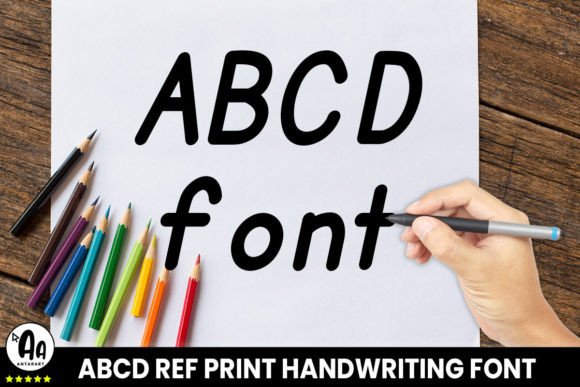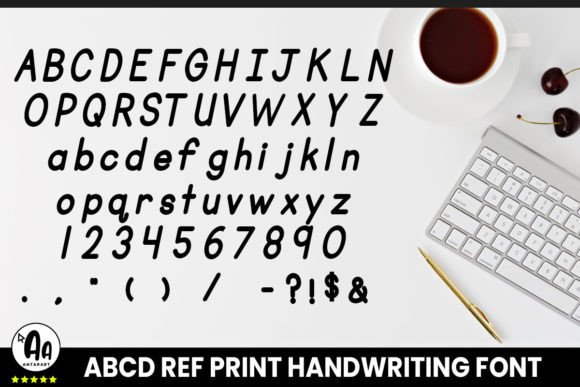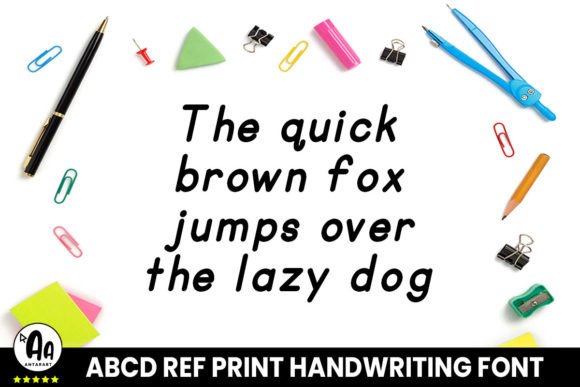
Introducing the ABcd Ref Bold Italic Font: A Fun Learning Resource for Designers and Crafters
Are you a designer or crafter looking for a unique and engaging way to create educational resources? Look no further than the ABcd Ref Bold Italic font, part of the ABCD Ref font family. This handy display font is based on the D’Nealian Method US school and is perfect for creating thousands of worksheets that make learning the print alphabet an enjoyable and interactive experience.
What is the ABcd Ref Bold Italic Font?
The ABcd Ref Bold Italic font is a specially designed font that allows you to create a wide range of educational resources, from alphabet charts and worksheets to activity sheets and games. Its unique design is based on the D’Nealian Method, a popular handwriting style used in many US schools. This font is perfect for teachers, homeschoolers, and designers who want to create engaging and interactive learning materials.
Key Features of the ABcd Ref Bold Italic Font
- Based on the D’Nealian Method: This font is designed to match the handwriting style used in many US schools, making it an excellent resource for teachers and homeschoolers.
- Bold and Italic Design: The ABcd Ref Bold Italic font features a bold and italic design that is both visually appealing and easy to read.
- Perfect for Creating Worksheets: With this font, you can create thousands of worksheets, from simple alphabet charts to more complex activity sheets.
- Interactive Learning: The ABcd Ref Bold Italic font is designed to make learning the print alphabet an enjoyable and interactive experience.
The ABcd Ref Bold Italic font offers a range of benefits for designers and crafters, including:
- Customization: With the ABcd Ref Bold Italic font, you can create a wide range of educational resources, from simple alphabet charts to complex activity sheets.
The ABcd Ref Bold Italic font is a valuable resource for designers and crafters who want to create engaging and interactive educational materials. With its unique design and ease of use, this font is perfect for teachers, homeschoolers, and designers who want to make learning the print alphabet a fun experience. Whether you’re creating worksheets, alphabet charts, or activity sheets, the ABcd Ref Bold Italic font is an excellent choice.